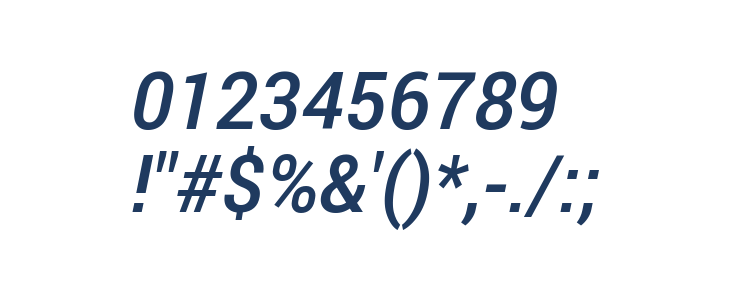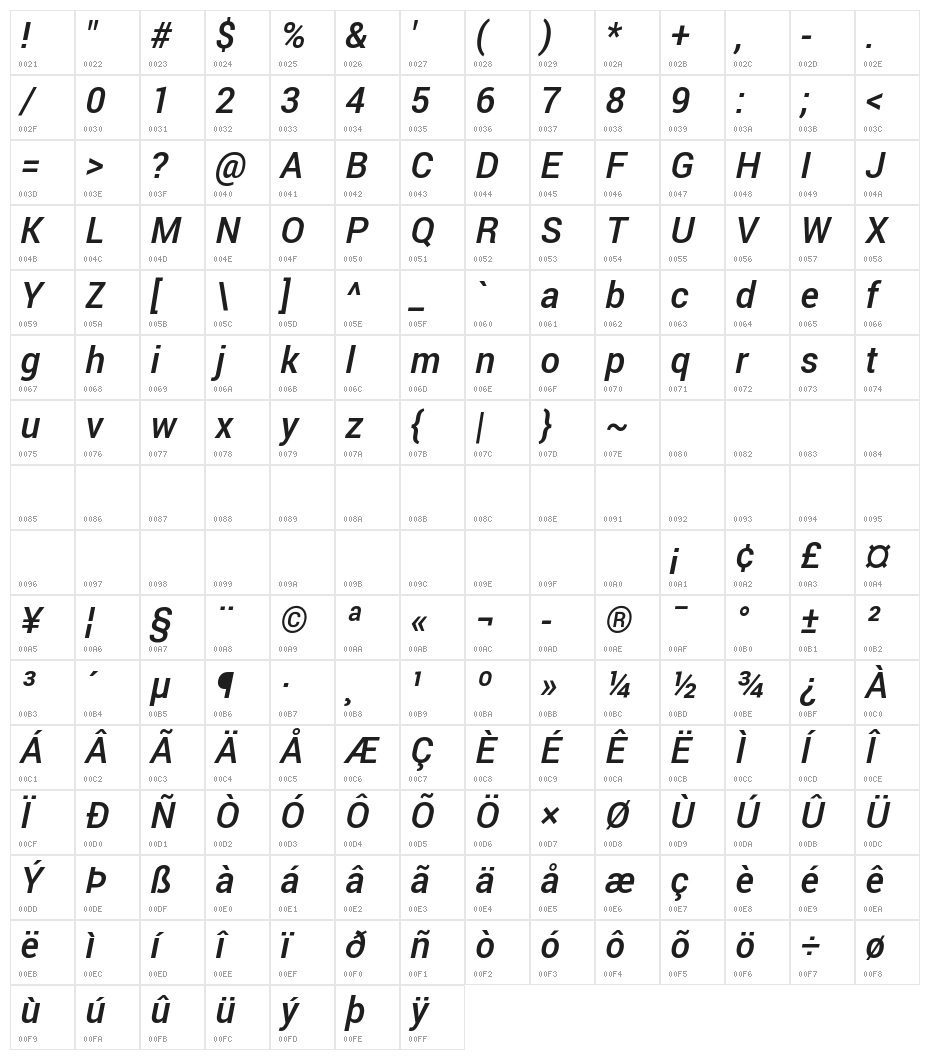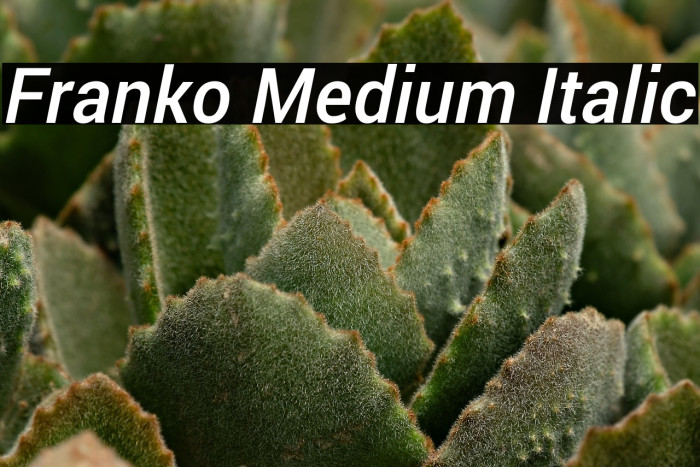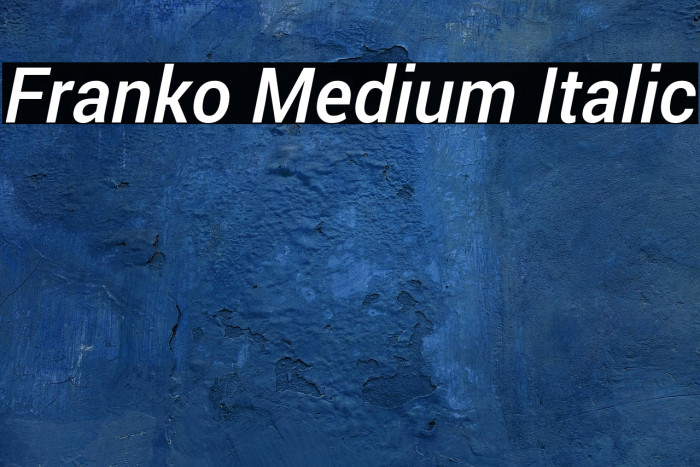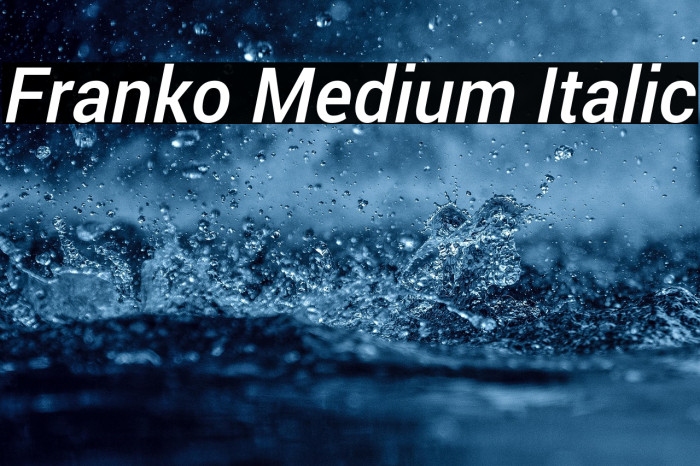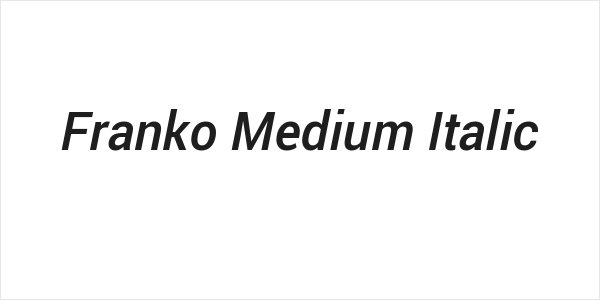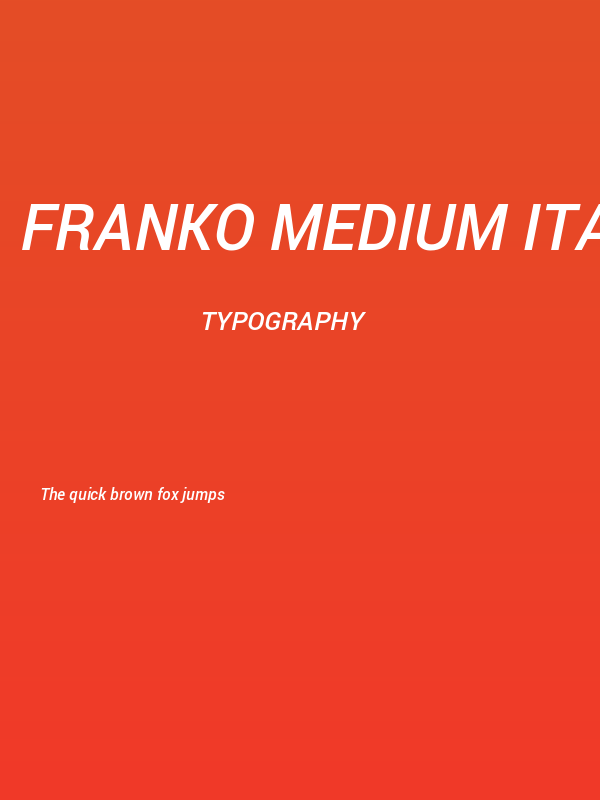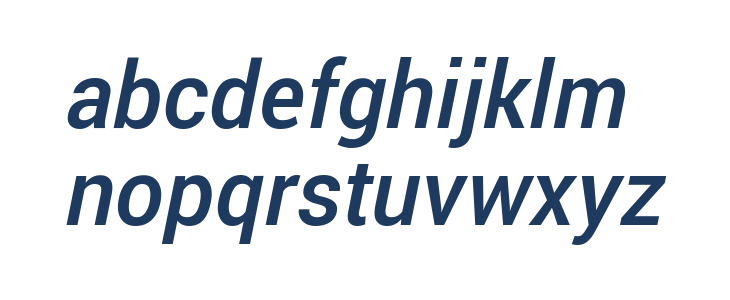
Franko Medium Italic Font
Franko Medium Italic Description
This font exhibits a modern and sleek design with a slightly italicized style, giving it a dynamic and forward-leaning appearance. The characters are well-proportioned with a consistent stroke width, contributing to a clean and professional look. The uppercase letters are bold and assertive, while the lowercase letters maintain a balanced and approachable feel. Numbers are clear and legible, making them suitable for various applications. The special characters are distinct and well-integrated, ensuring versatility in usage. Overall, this font combines elegance with readability, making it ideal for contemporary design projects.
| Proposed Projects | Ideal for branding, advertising, web design, and editorial projects that require a modern and dynamic touch. |